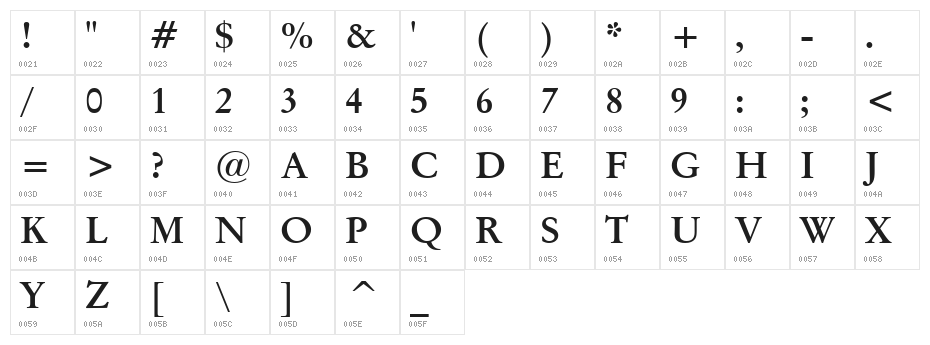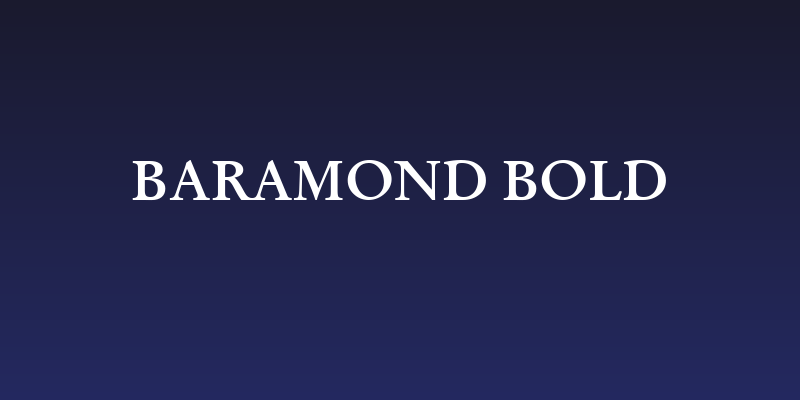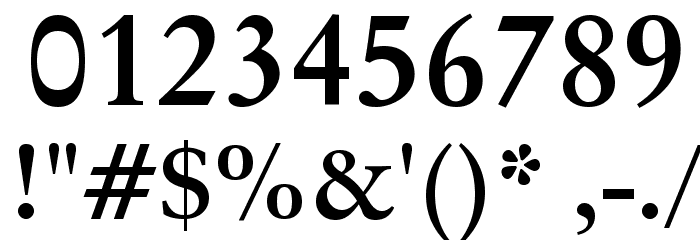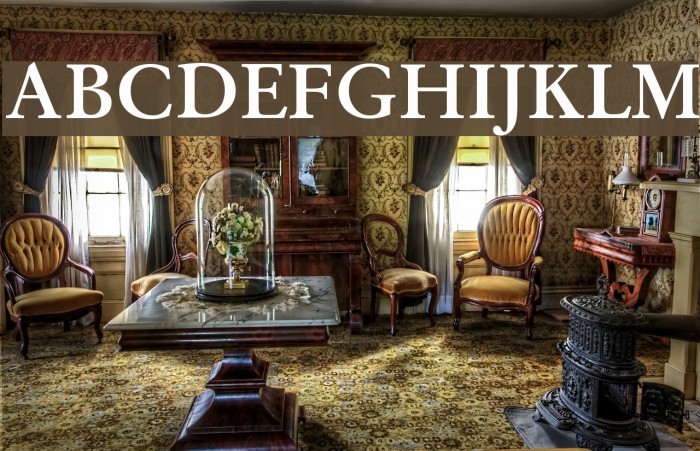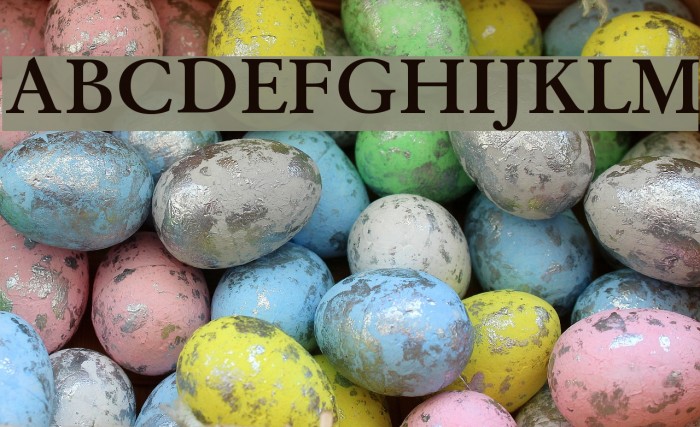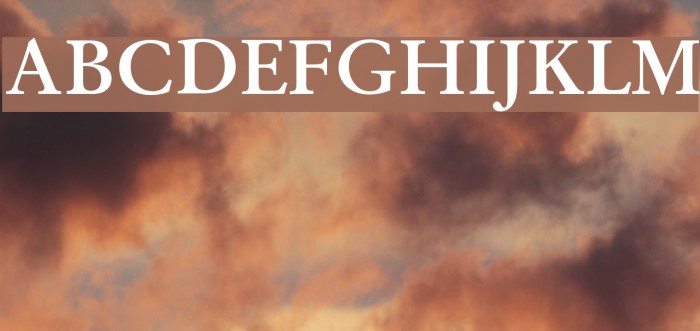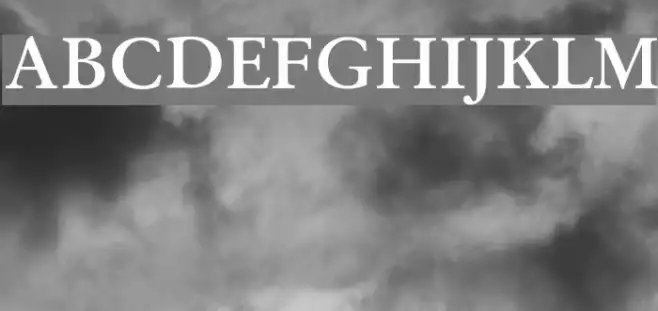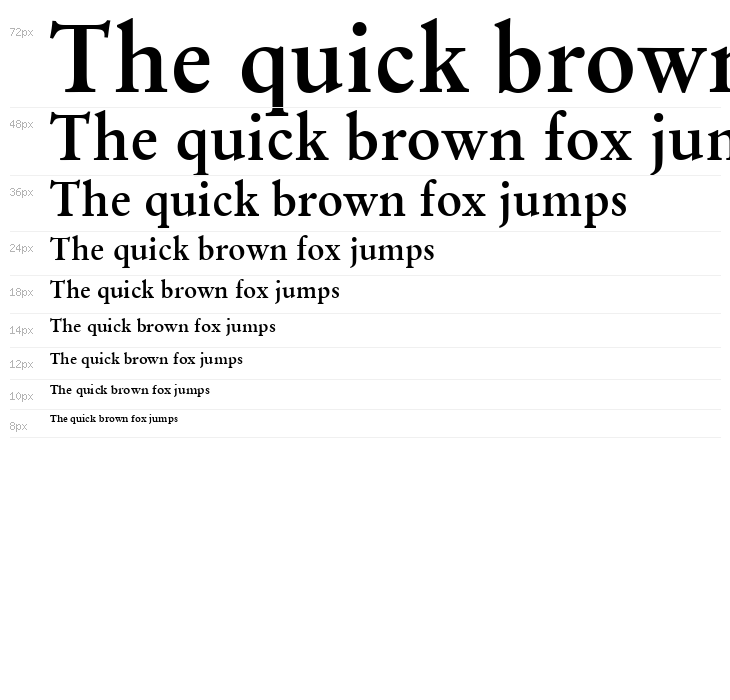
Baramond Bold Font
Baramond Bold Description
This font exudes a classic and timeless elegance, characterized by its strong, bold strokes and refined serifs. The uppercase letters are stately and commanding, while the lowercase letters maintain a graceful flow, making it versatile for various applications. The numerals are clear and well-proportioned, ensuring readability. Special characters are thoughtfully designed, maintaining the overall aesthetic. The font's high contrast between thick and thin strokes adds to its sophisticated appearance, making it suitable for formal and professional settings.
| Overall Style | Classic |
| Use Case | Headlines, Logos, Editorial design |
| Proposed Projects | Ideal for book covers, formal invitations, branding for luxury products, and editorial design. |